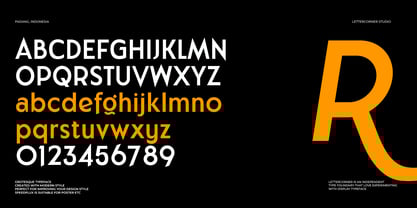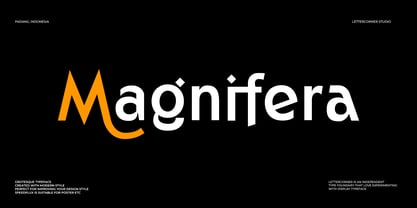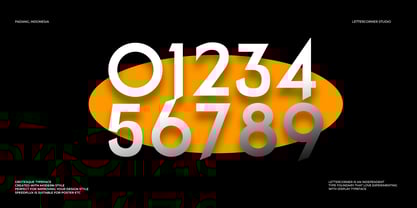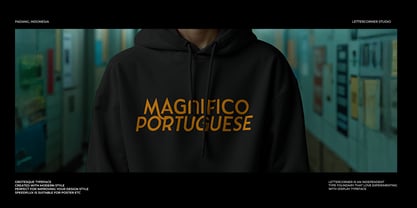
Magnifera
The Magnifera Font Family was designed by Muhammad Afif Ersya and published by Mevstory Studio. Magnifera contains 2 styles and family package options. More about this family
Magnifera walks the fine line between timeless minimalism and contemporary edge. Inspired by the clarity of classic grotesks, it refines those shapes with modern proportions and subtle details that bring warmth and character. Clean but never cold, structured but not rigid—every letterform is crafted for effortless legibility and stylistic impact.